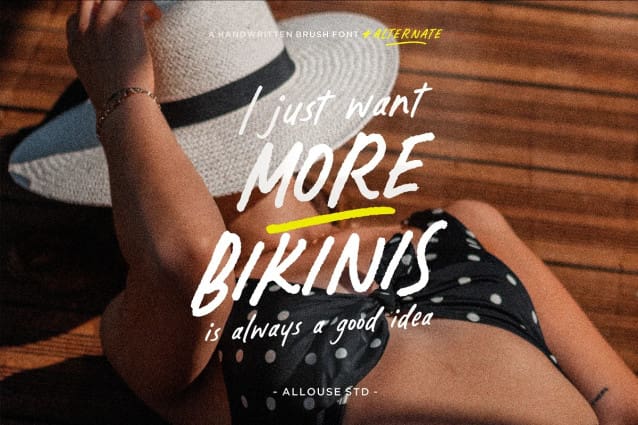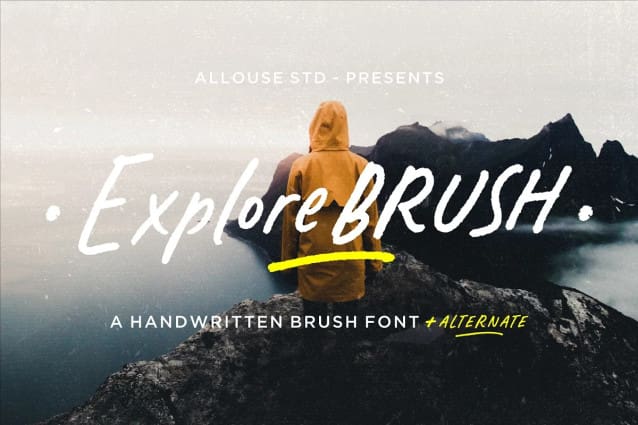
Explorebrush Font
Explorebrush Font a Handwritten Brush Font, perfect for any titles, logo, product packaging, branding project, megazine, social media, wedding, or just used to express words above the background.
Explorebrush also come with Multi-Lingual Support.